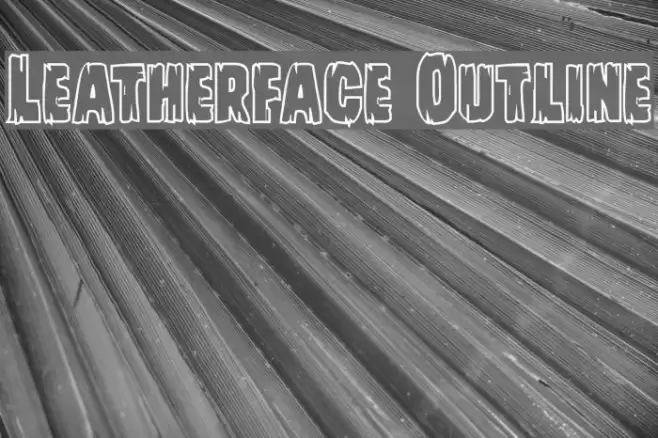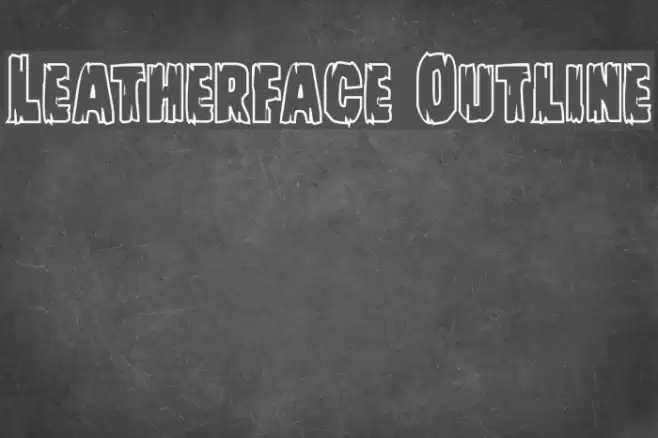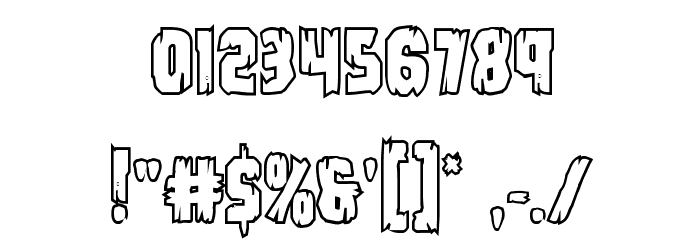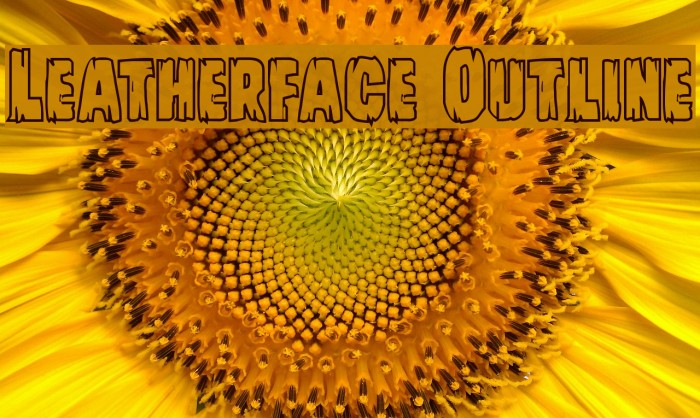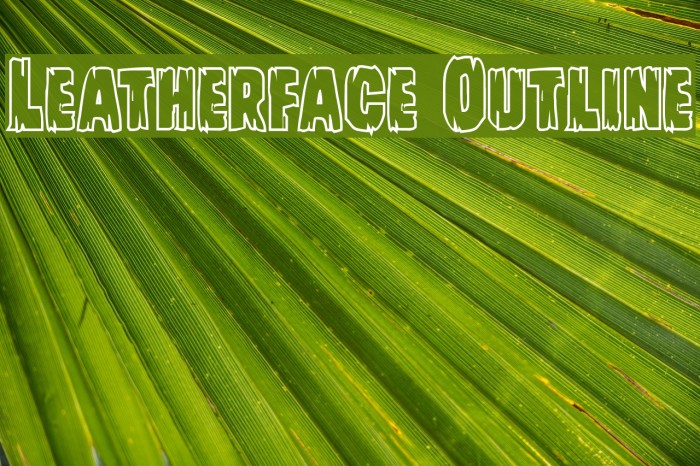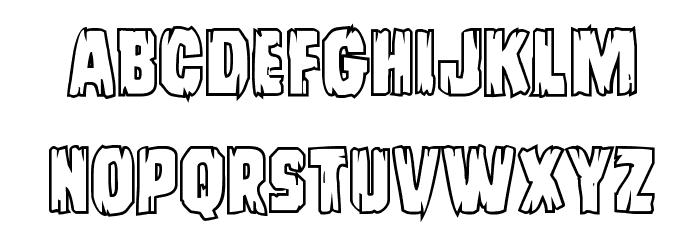
Leatherface Outline Font
Leatherface Outline Description
This font features a bold, rugged outline style that gives each character a distressed and edgy appearance. The letters are uppercase and have a slightly irregular, hand-drawn quality, adding to their unique and eye-catching design. The font's outline effect creates a sense of depth and texture, making it ideal for designs that require a strong visual impact. The characters are evenly spaced, ensuring readability while maintaining their distinctive style. This font is perfect for projects that aim to convey a sense of boldness and creativity.
A bold, rugged outline font with a distressed, hand-drawn appearance from Uncategorized fonts.
- Proposed Projects: Ideal for posters, album covers, event flyers, and any design needing a bold, creative touch.